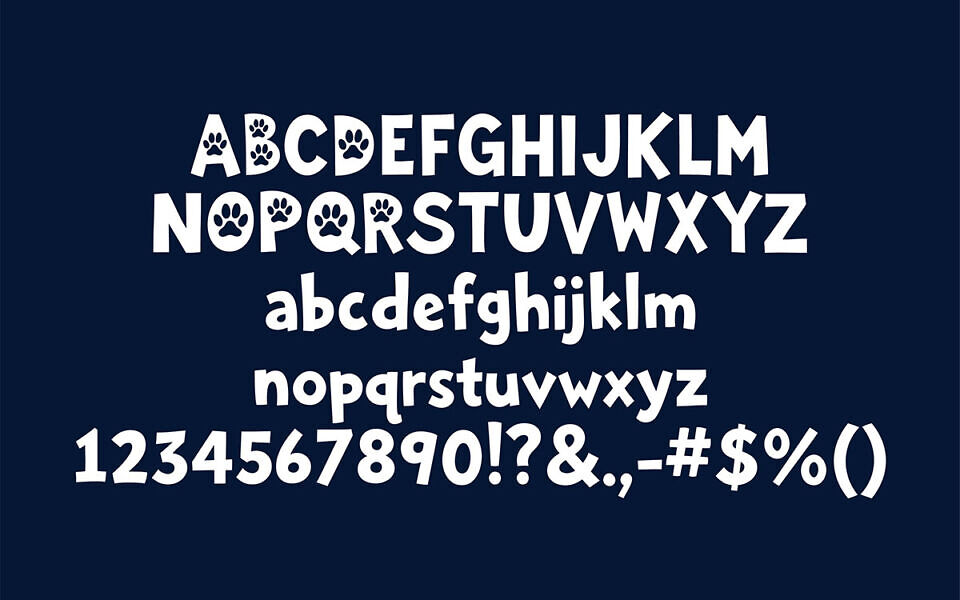
The “LT Fuzz” font by LyonsType is a playful, free typeface with a hand-drawn, rounded style. Its slightly irregular letters exude a casual, approachable charm, perfect for pet-related branding, children’s books, or quirky designs. Supporting uppercase, lowercase, numbers, and symbols, the font maintains a bold, consistent look.
Ideal for posters, logos, or social media graphics, LT Fuzz’s lighthearted tone reflects LyonsType’s creative flair. This versatile typeface stands out for its fun yet readable design, making it a great choice for projects needing a friendly, informal aesthetic.